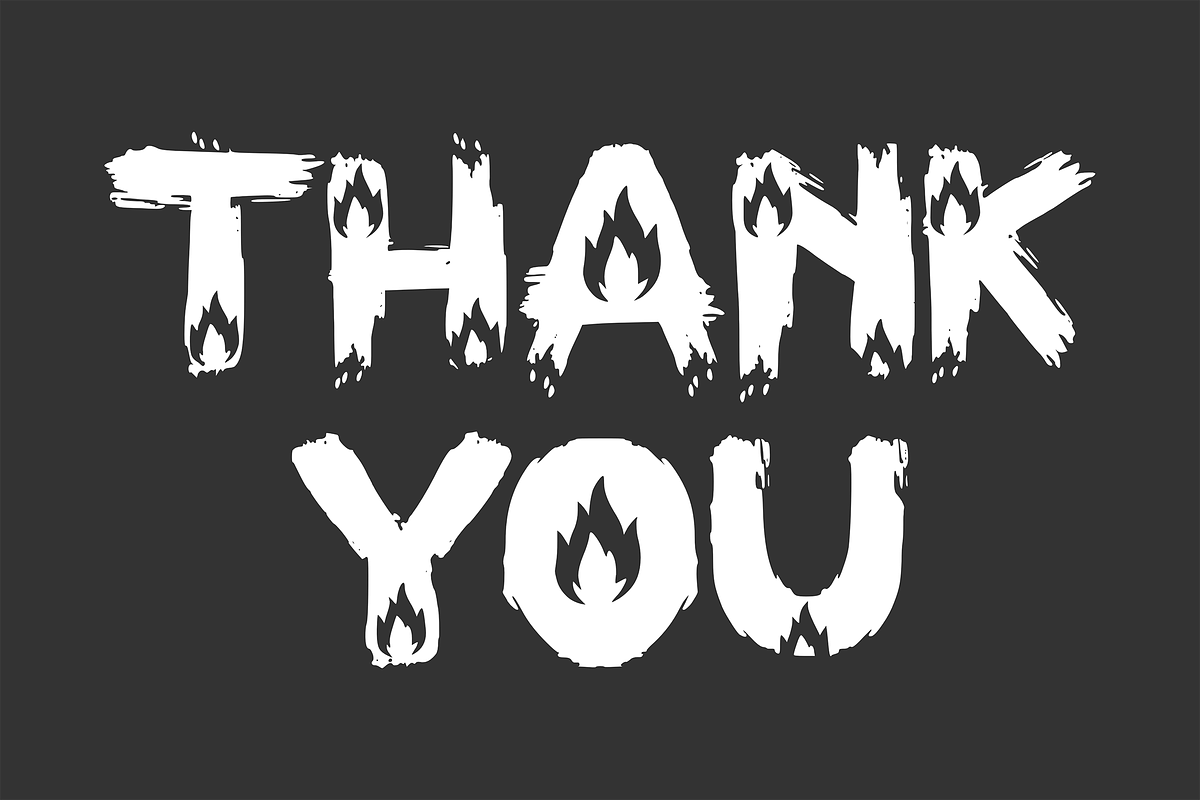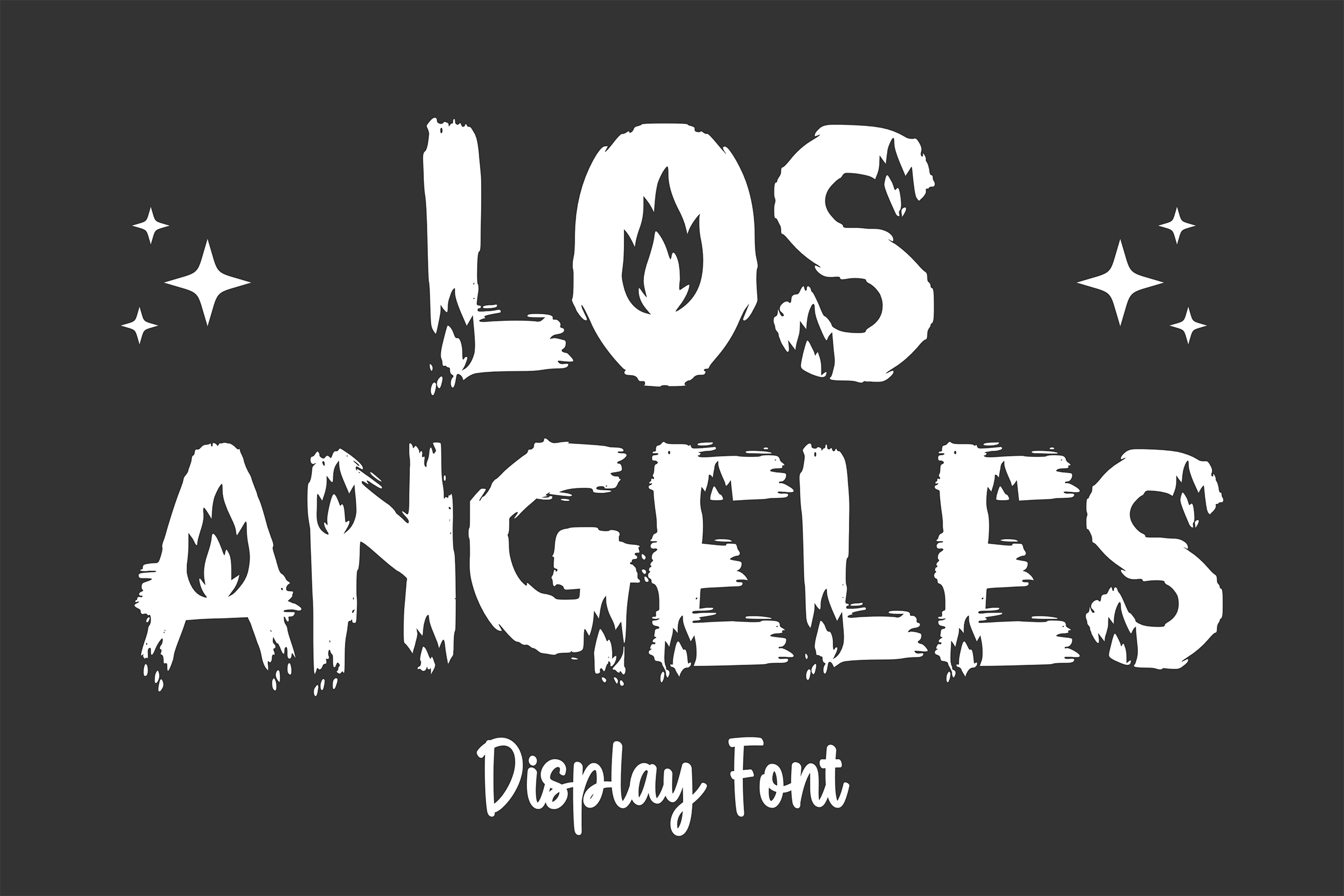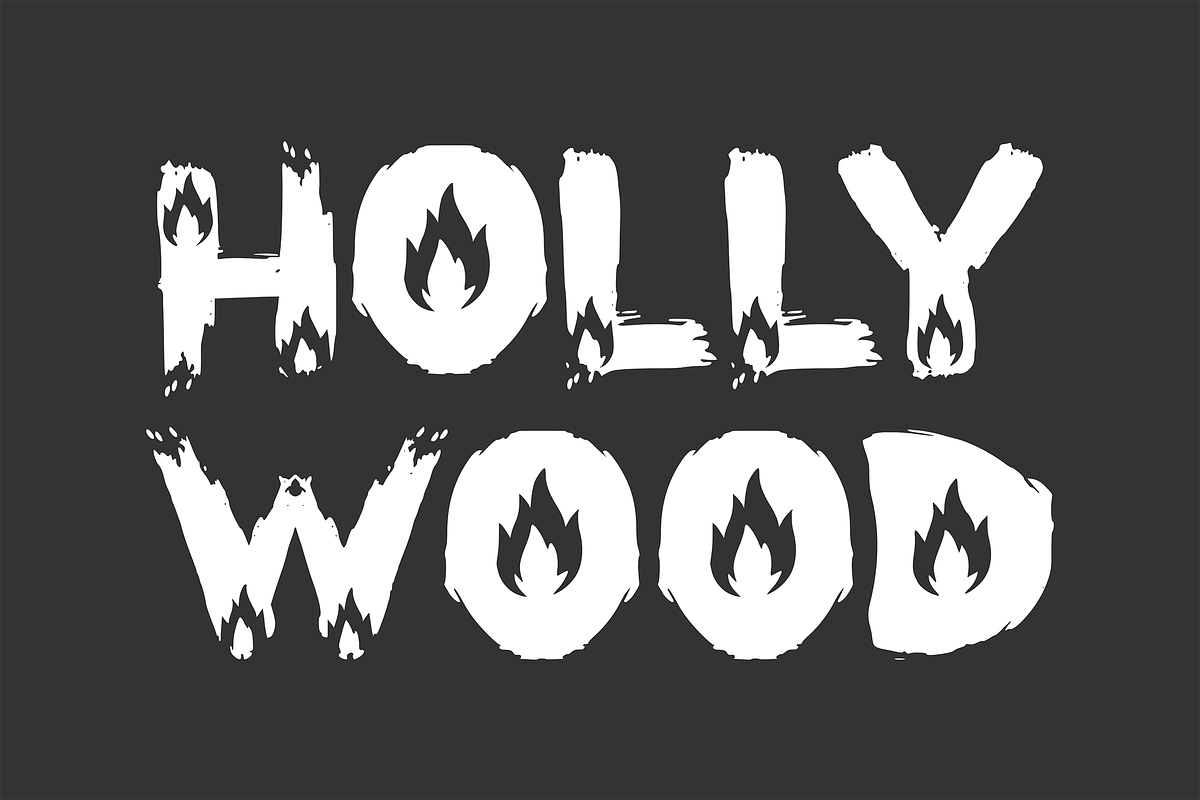
Los Angeles - Brush Font Types
Introducing Los Angeles – a fiery font that inspires a thrilling feeling. More than just a typeface, this font is the perfect companion for your projects that need a wild touch. With its playful contours and bold appeal, Los Angeles easily stands out on a headline or poster, transforming an ordinary task into a joyful celebration. Whether you’re celebrating a big day or adding some cheer to a party.